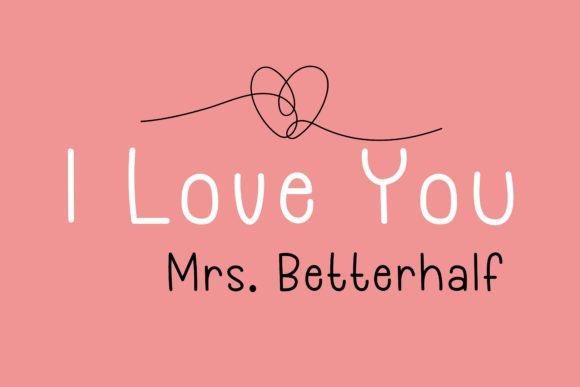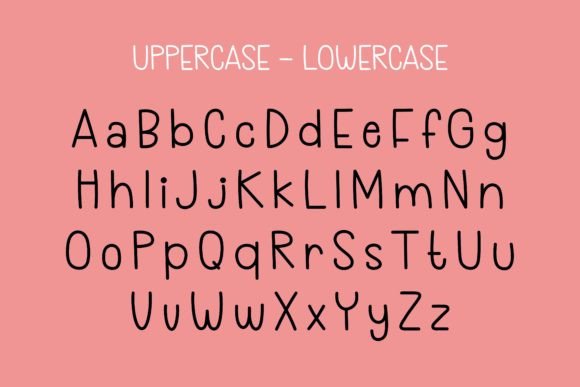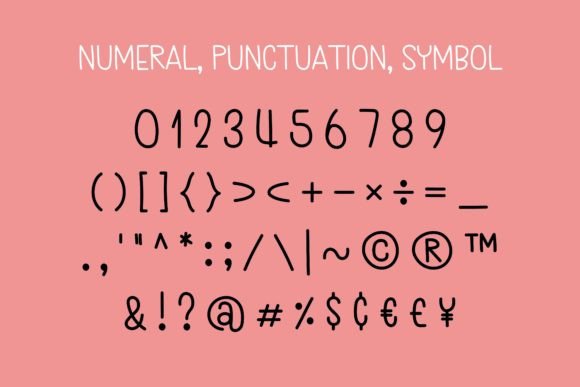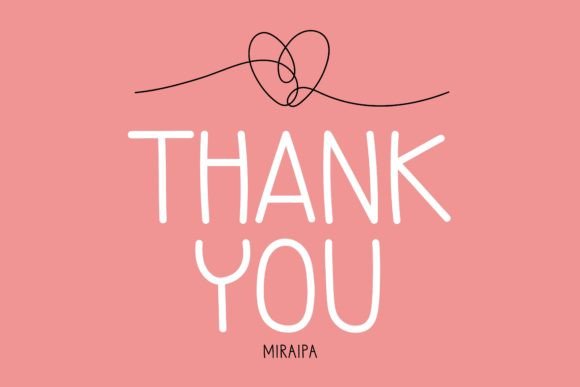
The Betterhalf Font: A Friendly and Versatile Companion for Your Creative Projects
Have you ever been in the middle of a design project, and suddenly, you’re stuck on finding the perfect font? I recall a particularly frustrating experience while working on a wedding invitation design. My client wanted a font that was both elegant and playful, but I just couldn’t seem to find the right fit. That’s when I discovered the Betterhalf font, and it completely transformed my design. In this article, we’ll dive into the world of Betterhalf, exploring its features, uses, and what makes it an excellent addition to your font library.
A Personal Review: What I Love About Betterhalf
I’m excited to share my honest review of the Betterhalf font. Here’s what I love about it:
• ✨ Cute and Friendly Handwritten Style: Betterhalf boasts a charming, handwritten sans-serif font style that’s perfect for a wide range of creative projects.
• ✅ Versatility: This font is incredibly versatile, making it suitable for various applications, from diary and planner designs to wedding invitations, party decorations, and more.
• ✅ Ease of Use: Betterhalf is easy to read and works well in both digital and print formats.
While Betterhalf is an excellent font, there are a few minor quirks to be aware of:
• ⚠️ Limited Formality: Due to its playful nature, Betterhalf might not be the best choice for very formal or professional projects.
• 🤔 Glyph Variety: While Betterhalf comes with a range of glyphs and stylistic alternates, it might not have the extensive character set of some other fonts.
The Story Behind Betterhalf
Betterhalf was designed with the intention of creating a friendly, approachable font that would bring a touch of warmth to any design project. The designer aimed to craft a font that would be perfect for everyday use, from diary entries to party decorations. With its cute and playful handwritten style, Betterhalf has become a versatile companion for creatives around the world.
Font Name Betterhalf Font
Author miraipa
What type of projects is Betterhalf suitable for? Betterhalf is perfect for a wide range of projects, including diary and planner designs, wedding invitations, party decorations, social media posts, and more.
Is Betterhalf a formal or informal font? Betterhalf has a playful, handwritten style, making it more suitable for informal projects. However, it can be used in formal contexts if paired with other design elements.
Does Betterhalf come with OpenType features? Yes, Betterhalf includes OpenType features, such as glyphs and stylistic alternates, which can be accessed in compatible design software.